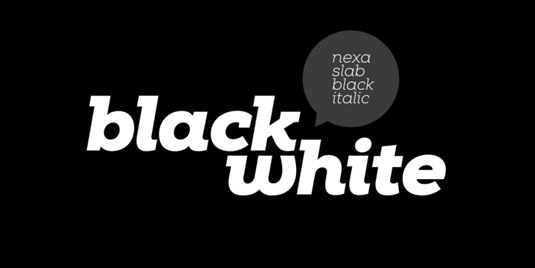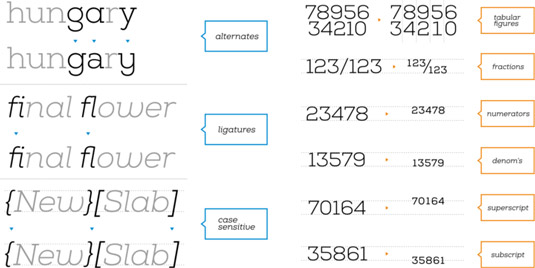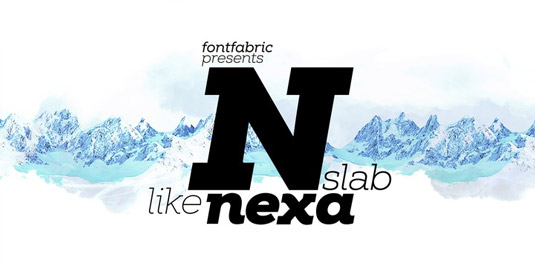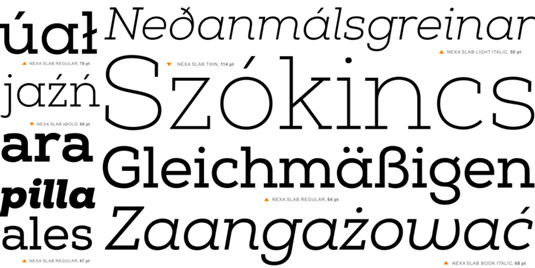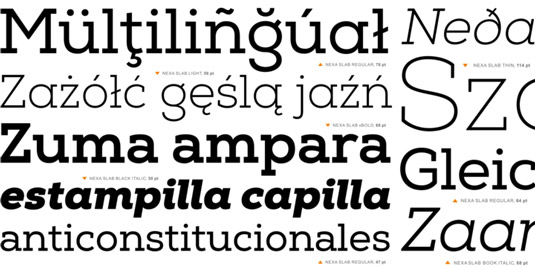
Font of the day: Nexa Slab
Nexa Slab by Fontfabric
Nexa Slab is a geometric slab serif font created by Bulgaria-based independent type foundry Fontfabric. Based on the company's bestselling font Nexa, this new design font family contains three basic forms: italics, obliques and uprights, each of which has eight different weights.
Its creators comment on Behance: "Nexa Slab is serious without being rigid and inflexible, finished and lacking in nothing, systematic without being monotonous, and though it may seem at first glance to be more suitable for short, direct messages; in the hands of a master designer... it can build and create exquisite and harmonic designs."